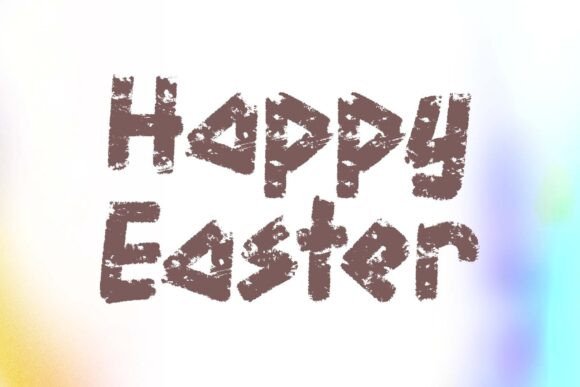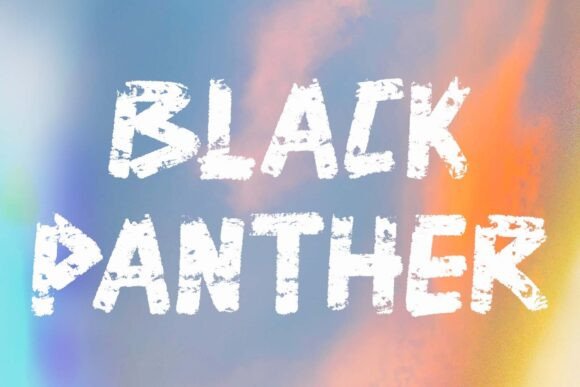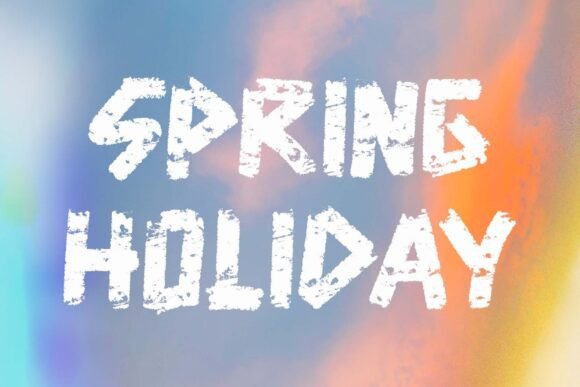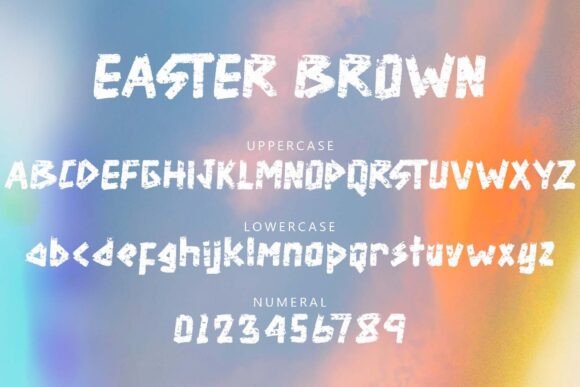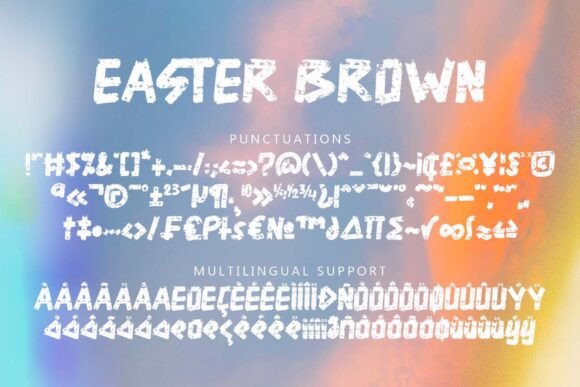
Introduction to Easter Brown Font
“Easter Brown” is an elegant and quality brush font.
This font is equipped with uppercase, lowercase, numeral, punctuations and multilingual support It is suitable for easter, holiday, spring, summer, halloween, movie titles, comic titles, stickers, posters, banners, prints, branding and others.
Easter Brown Font offers exceptional quality and versatility, making it a valuable addition to your design toolkit. Whether you’re creating for personal projects or commercial use, Easter Brown Font delivers professional results.